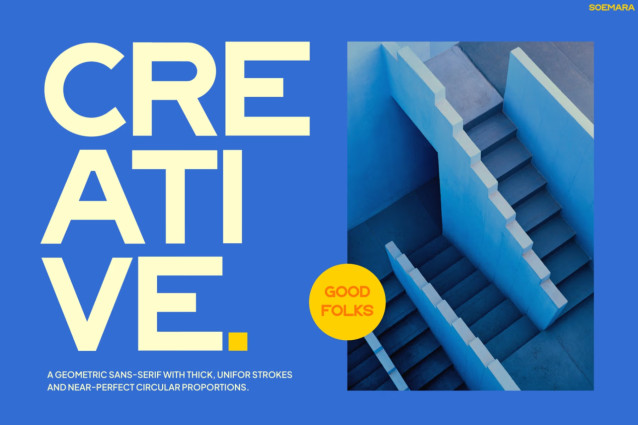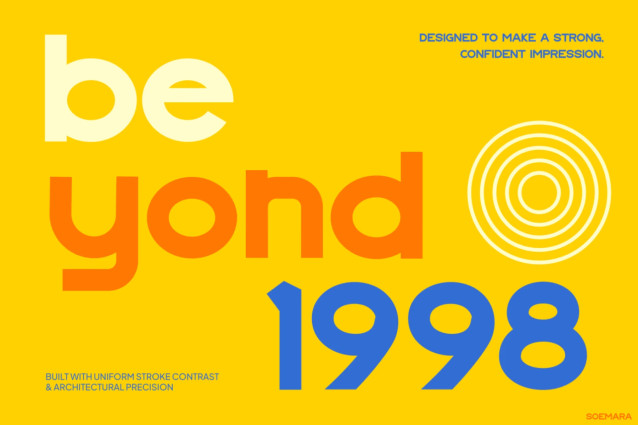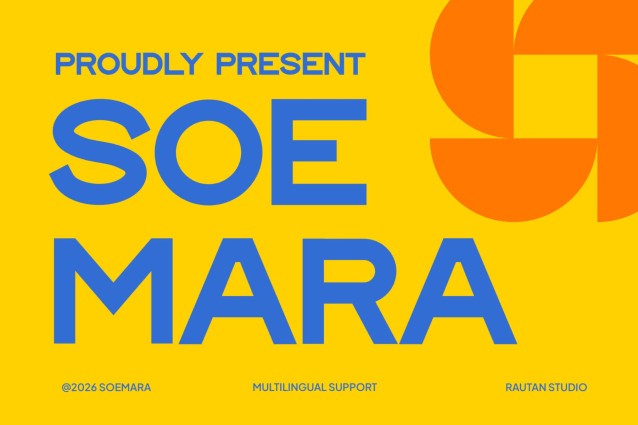
SOEMARA Font
SOEMARA – Bold, Bright & Modern
Modern Font SOEMARA bursts onto the scene with unapologetic energy and color. To start, its chunky rounded letterforms feel playful yet confident. At the same time, the geometric structure keeps everything sharp and clean. This combo gives SOEMARA a fresh, youthful edge. Moreover, the font pairs perfectly with bold color blocks and punchy layouts. It’s built for attention-grabbing headlines and standout branding.
Additionally, SOEMARA supports 67 languages with a full extended character set. This means it’s ready for global campaigns right out of the box. In short, SOEMARA doesn’t whisper — it shouts confidence in every letter.